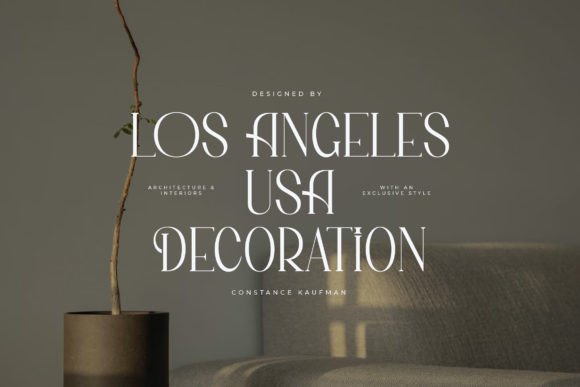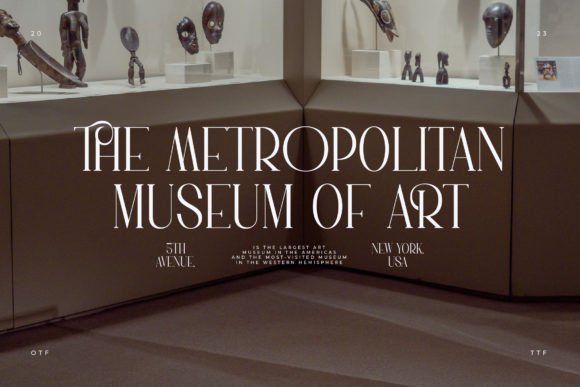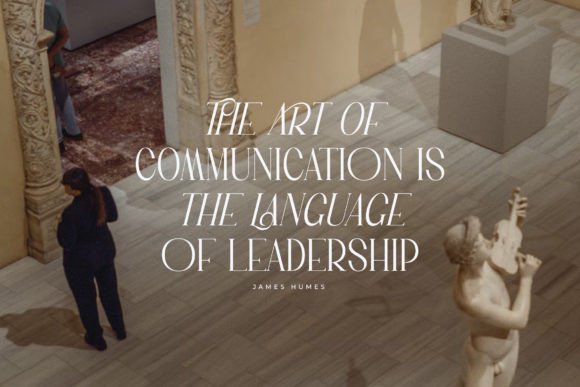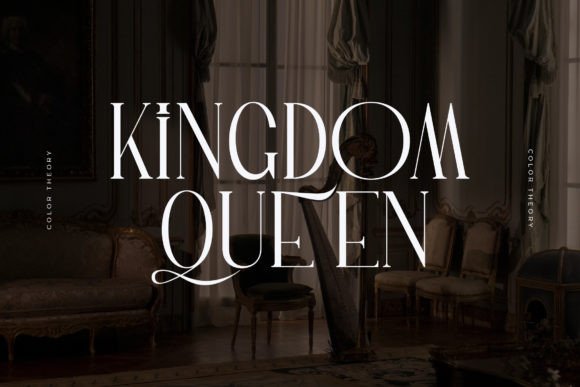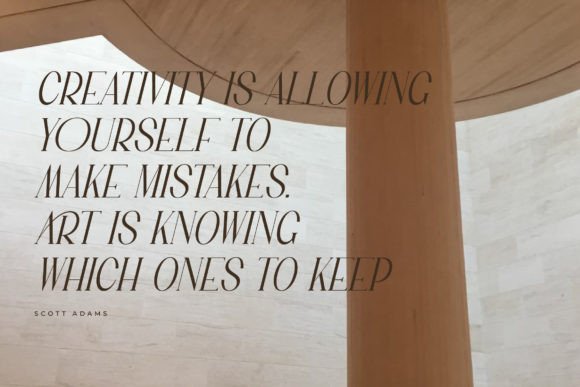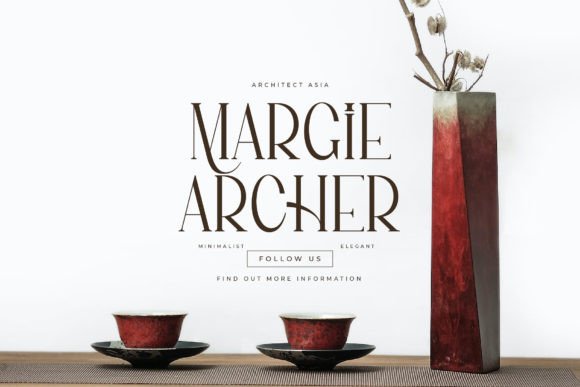
Introduction to Morathine Font
Morathine is a serif modern and classic typeface that has its own unique style & modern look.
This typeface is perfect for an elegant & luxury logo, book or movie title design, fashion brand, magazine, clothes, lettering, quotes, and so much more .